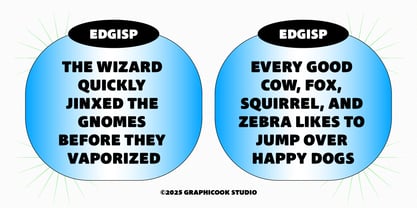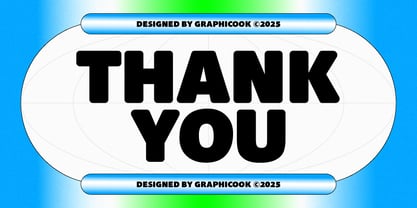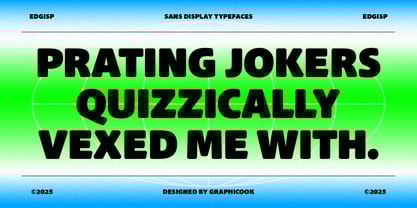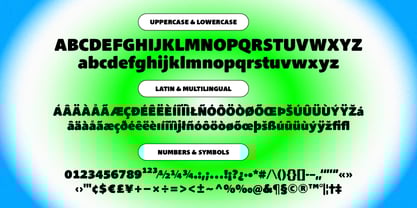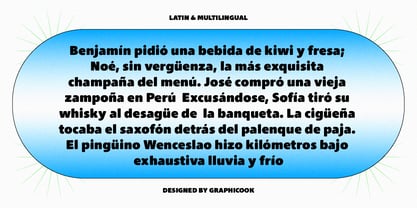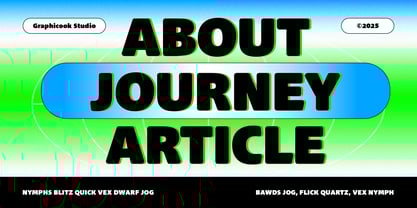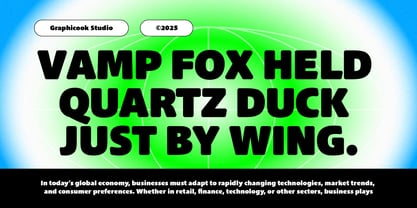
Cook Edgisp
by Graphicook Studio
The Cook Edgisp Font Family was designed by Gumilar Febriansyah and published by Graphicook Studio. Cook Edgisp contains 1 styles. More about this family
Introducing Edgisp! A modern sans display font with a bold and edgy style. Its rounded letterforms and versatile design make it an excellent choice for both headlines and body text. It is perfect for headlines, logotypes, magazines, packaging, quotes, movies, games, cover albums, book covers, and flyers, it's a perfect solution for creating eye-catching designs that stand out in any context.
Designers: Gumilar Febriansyah
Foundry: Graphicook Studio